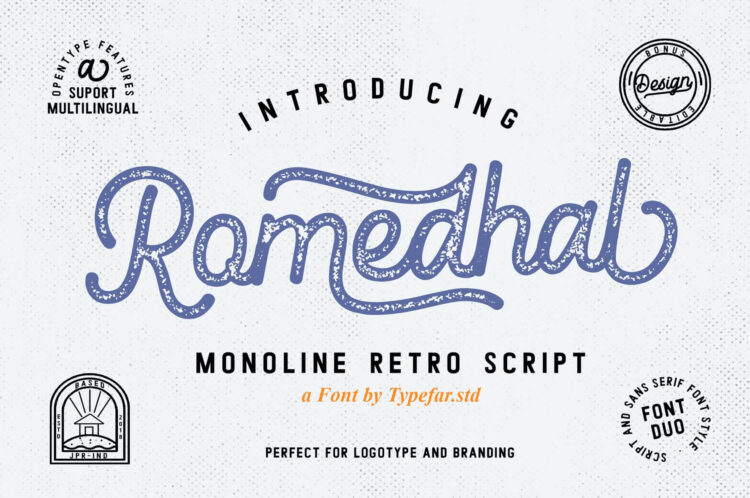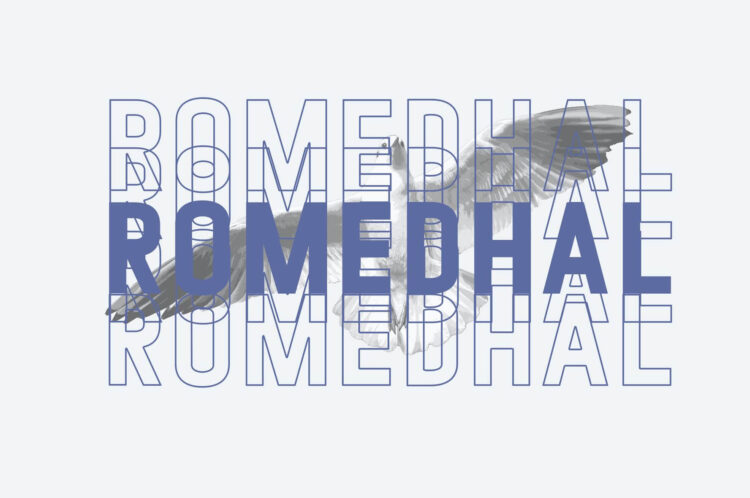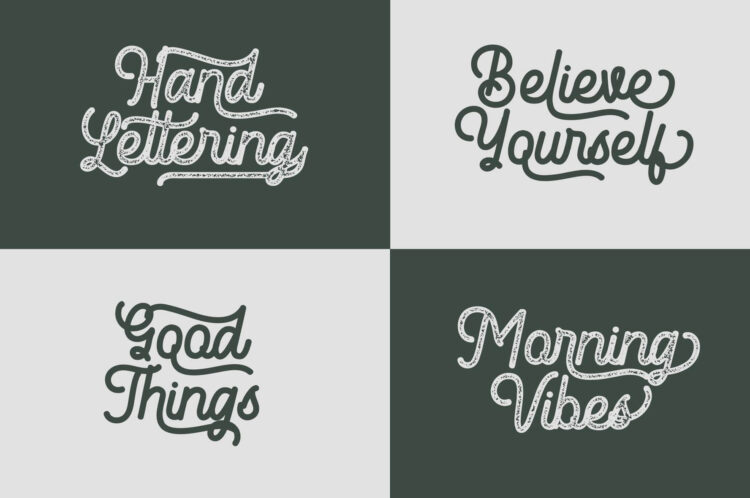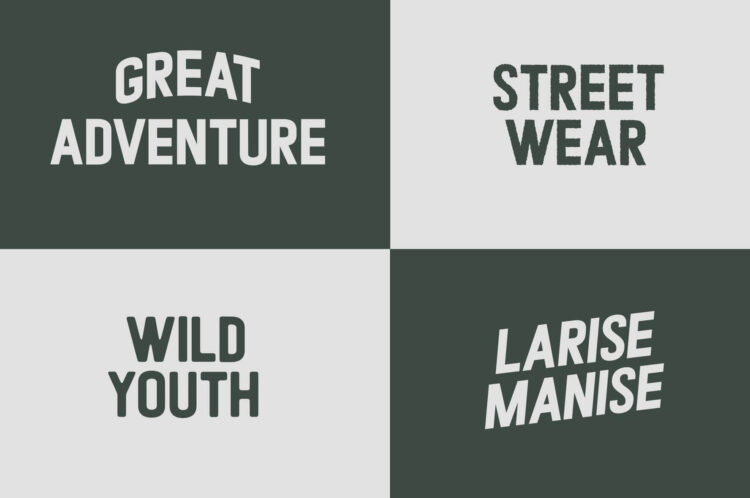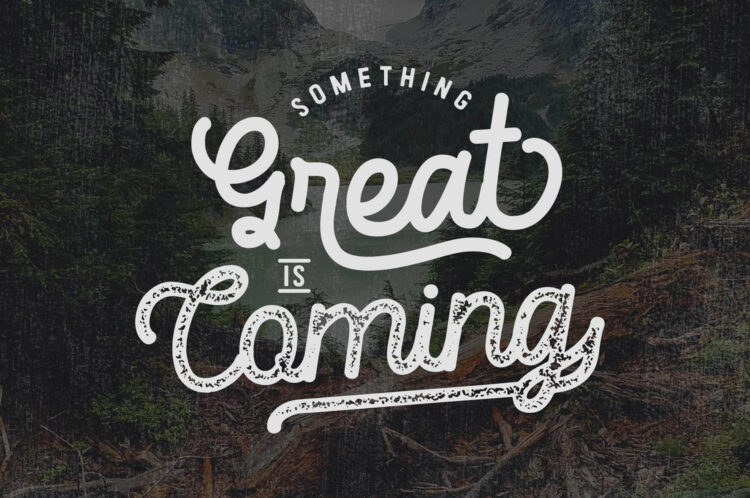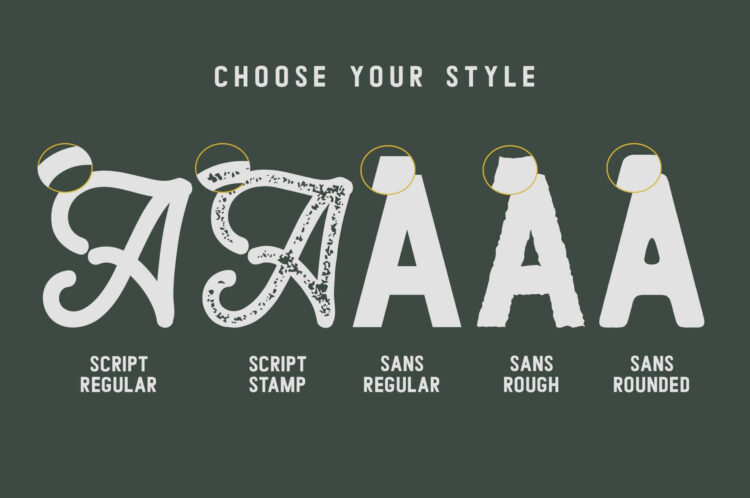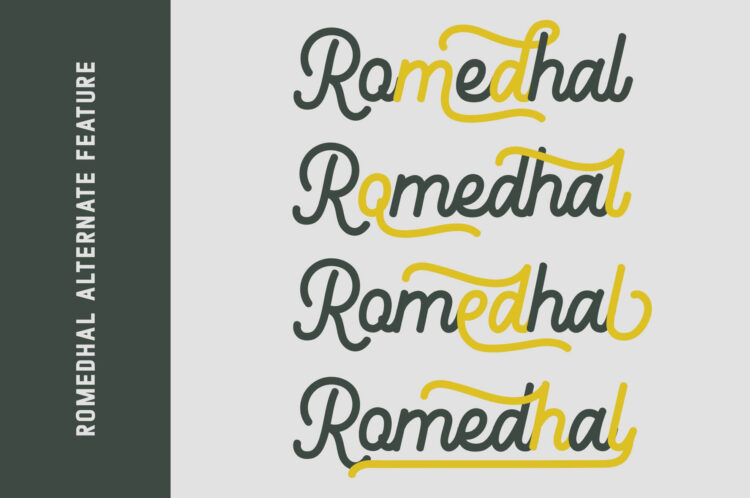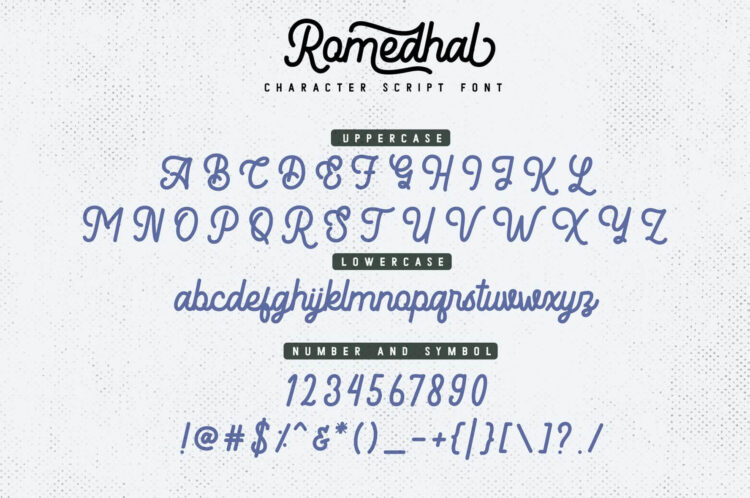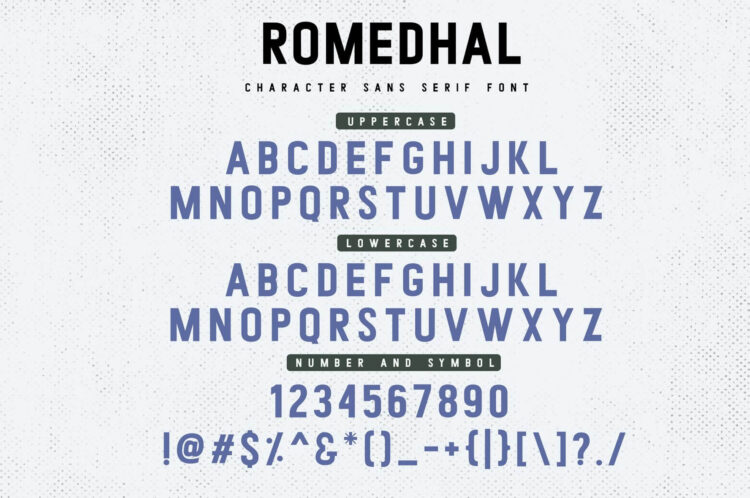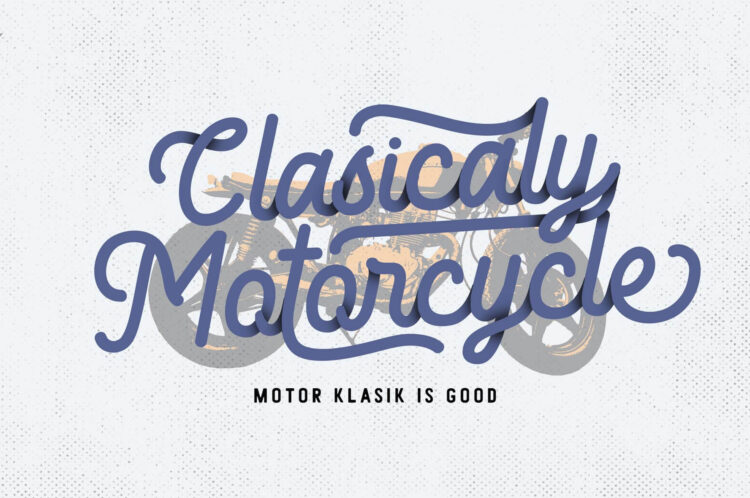
monoline retro script font
Romedhal Script
Romedhal Script Stamp
Romedhal Sans
Romedhal Sans Rounded
Romedhal Sans Rough
Let me Introduce you the newest font from us, Romedhal sans serif and monoline retro scipt. Romedhal fonts are suitable for branding designs and logos. there is bonus design with a PSD file that is easy to edit. very suitable for application on t-shirts, merchandise or for your business logo
– Uppercase and Lowercase Romedhal Script
– Stylistic Set Romedhal Script
– All Caps Romedhal Sans
– Support Multilingual